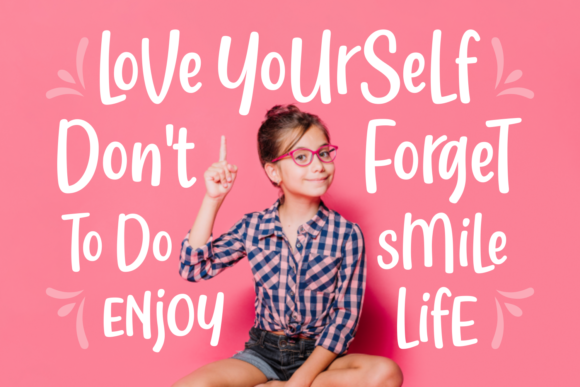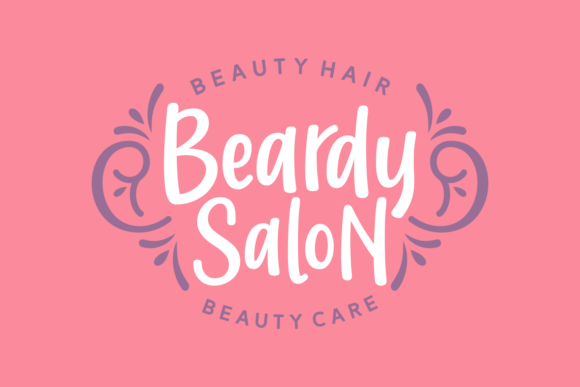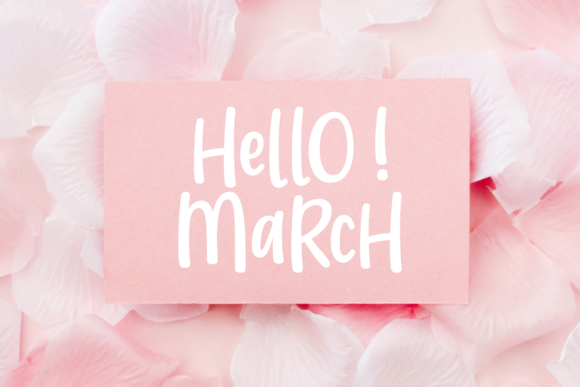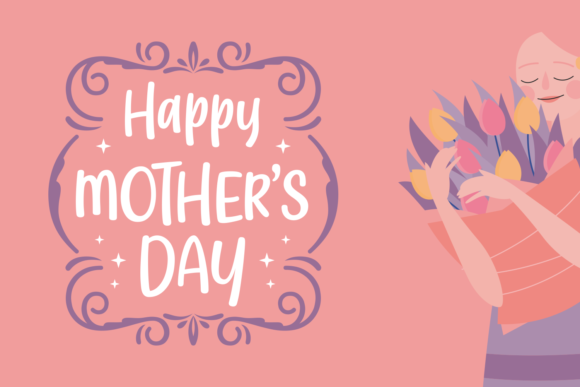
Lady Nature Font
About Lady Nature Font
The Lady Nature is an unique typeface. It includes bold letters which are perfect for adding a striking look to your designs.
It comes in a regular and italic style and includes amazing elements which can be used to spice up your designs.